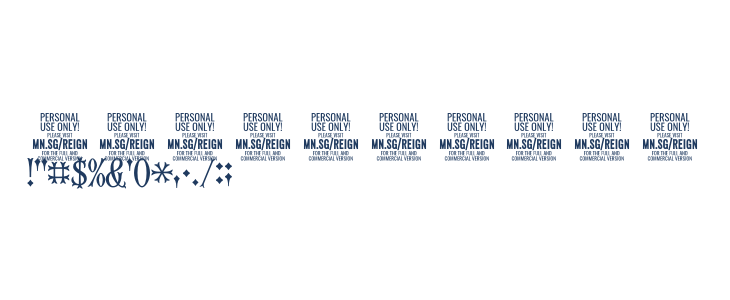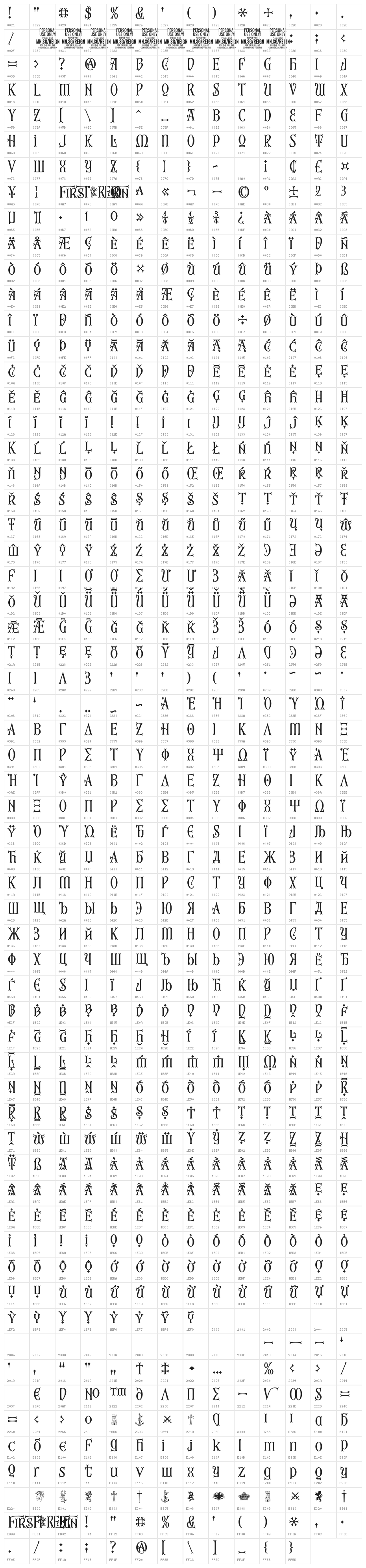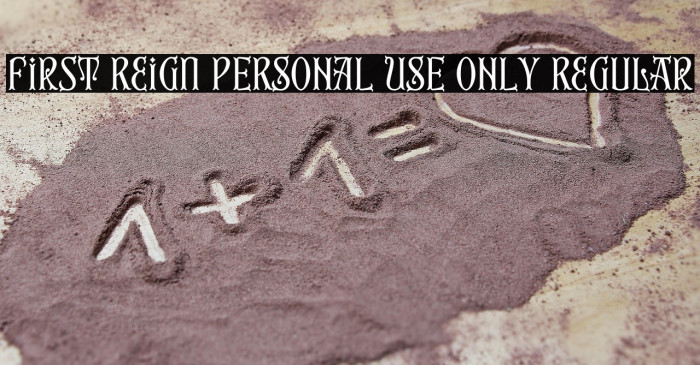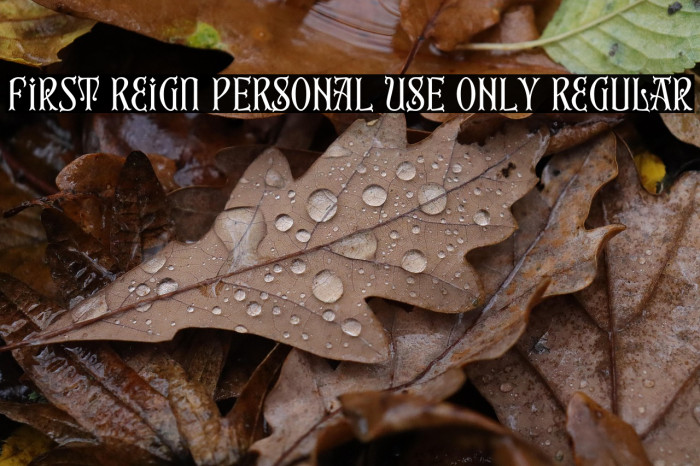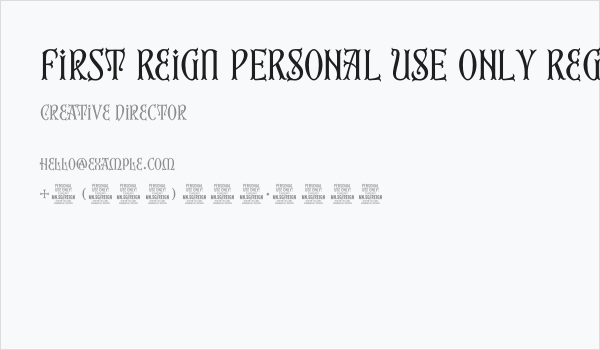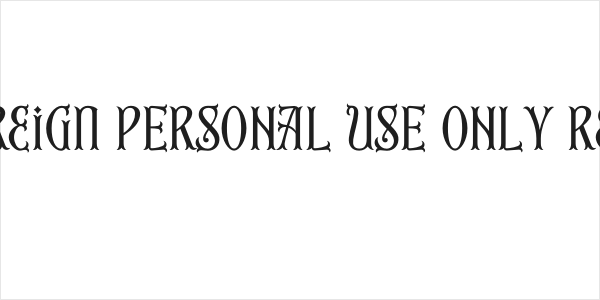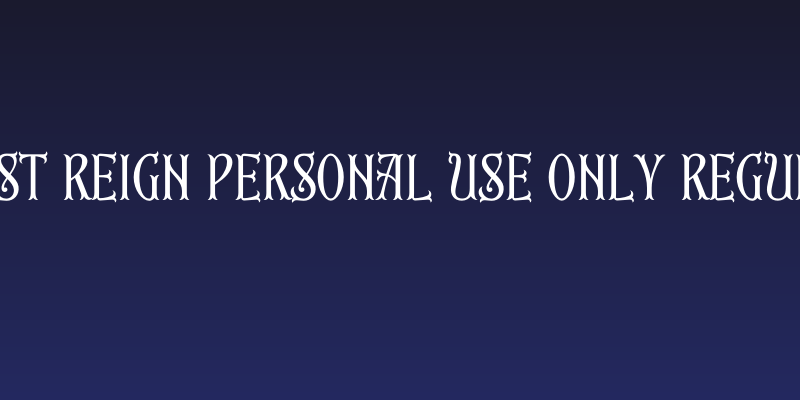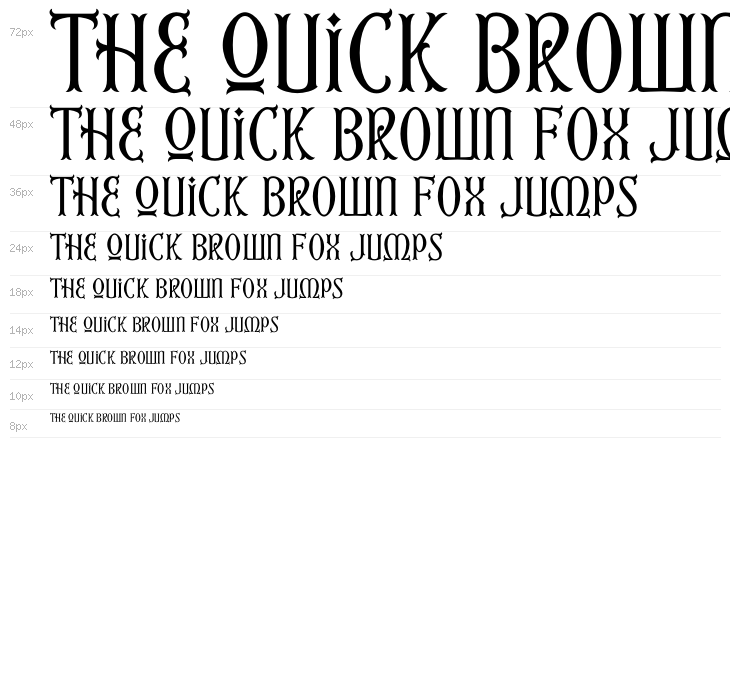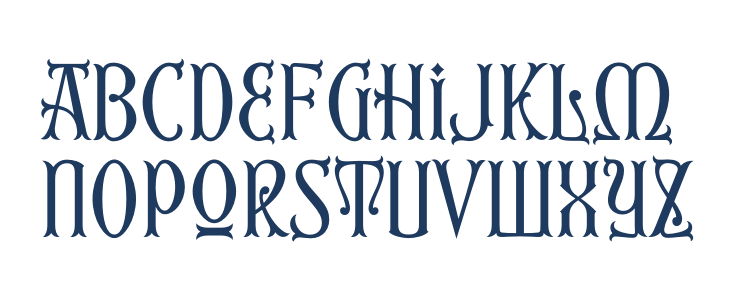
First Reign PERSONAL USE ONLY Regular Font
First Reign PERSONAL USE ONLY Regular Description
This font features a distinct and ornate style, reminiscent of medieval or gothic script. The characters are characterized by sharp serifs and intricate detailing, giving them a decorative and elaborate appearance. The uppercase letters are bold and commanding, while the lowercase letters maintain the same intricate style, ensuring consistency across the typeface. The numbers and special characters are equally ornate, with unique flourishes that add to the overall aesthetic. This font is ideal for projects that require a historical or fantasy theme, offering a dramatic and eye-catching look.